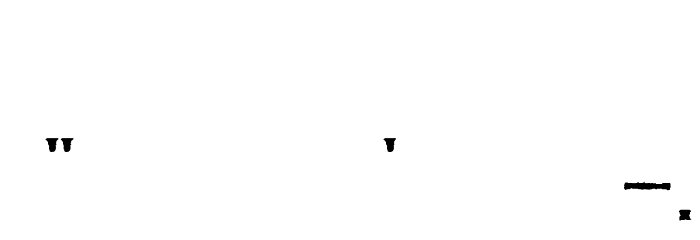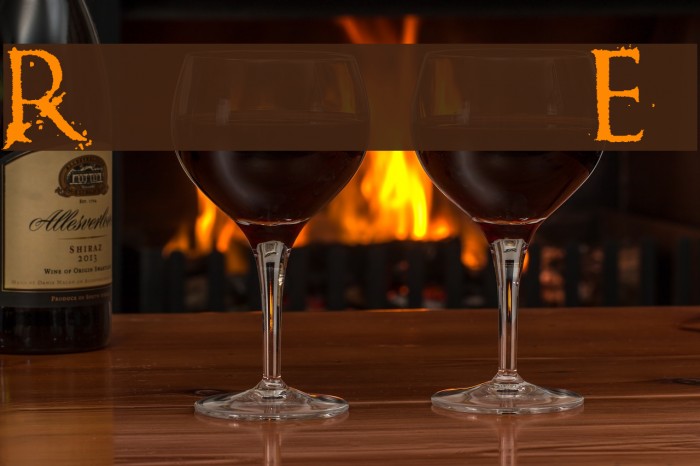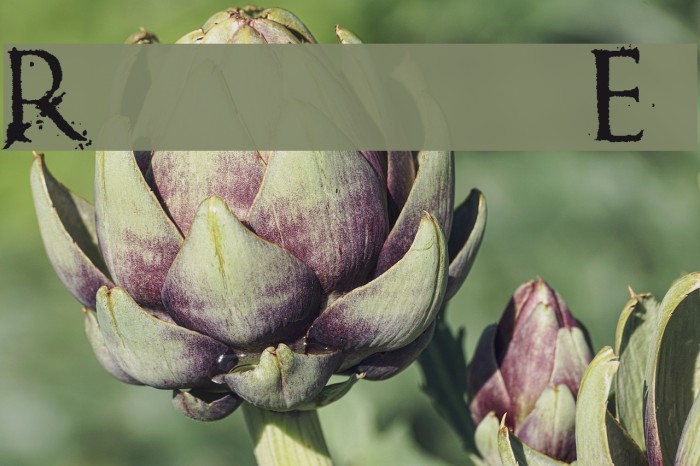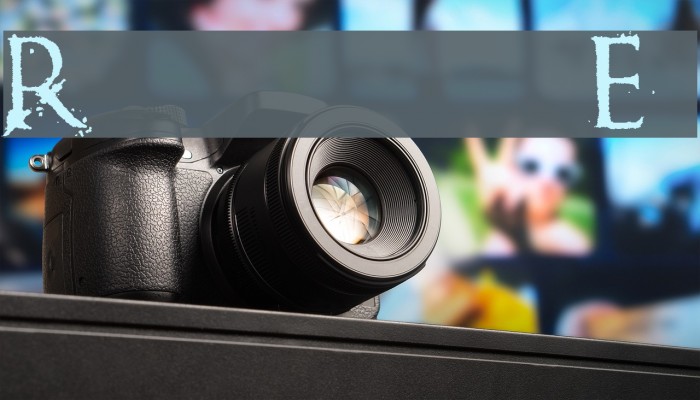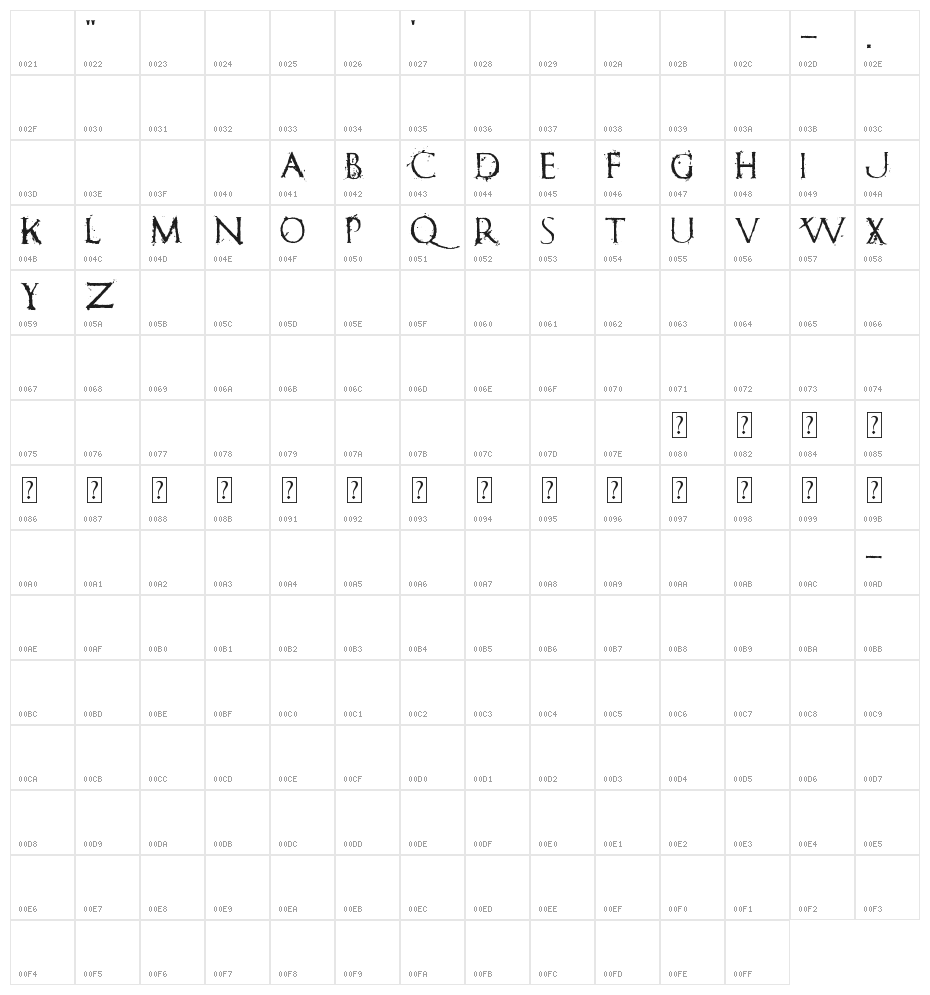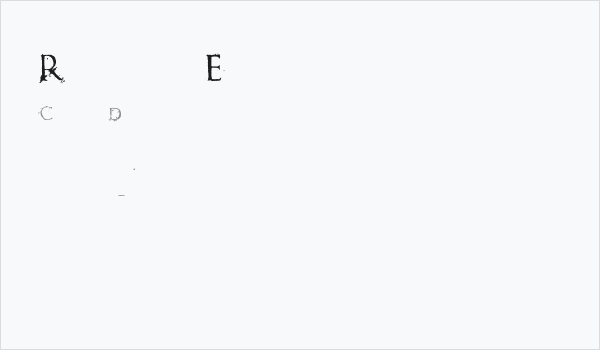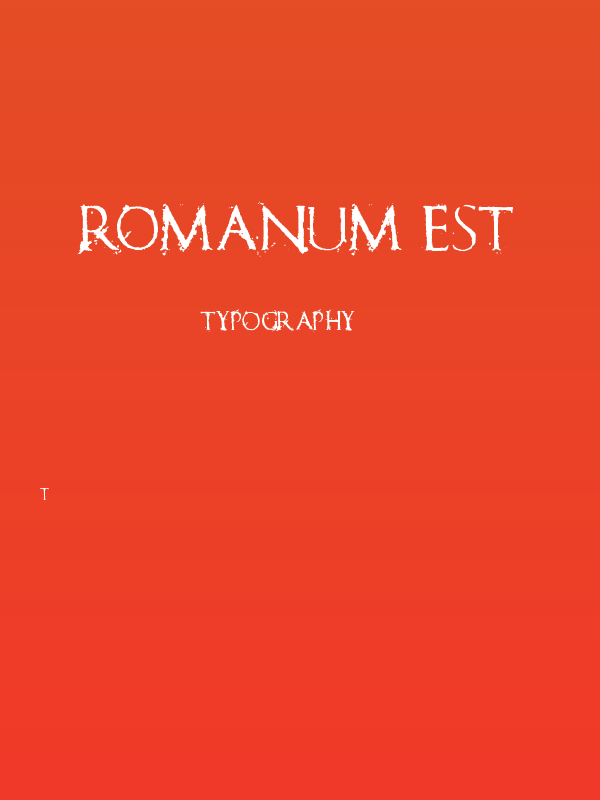
Romanum Est Font
This font exudes a classic and historical charm, reminiscent of ancient Roman inscriptions. The characters are elegantly crafted with a distinct serif style, featuring subtle variations in stroke width that add to its timeless appeal. The uppercase letters are bold and commanding, while the lowercase letters maintain a consistent and harmonious flow. The texture of the font gives it an aged, weathered look, as if it has been etched in stone for centuries. This aesthetic is perfect for projects that require a touch of antiquity and sophistication.
A classic serif font with a historical, Roman-inspired design.
- Proposed Projects: Ideal for historical documents, classical literature covers, museum exhibits, and period-themed branding.
- Category: Serif
- Overall Style: Classic